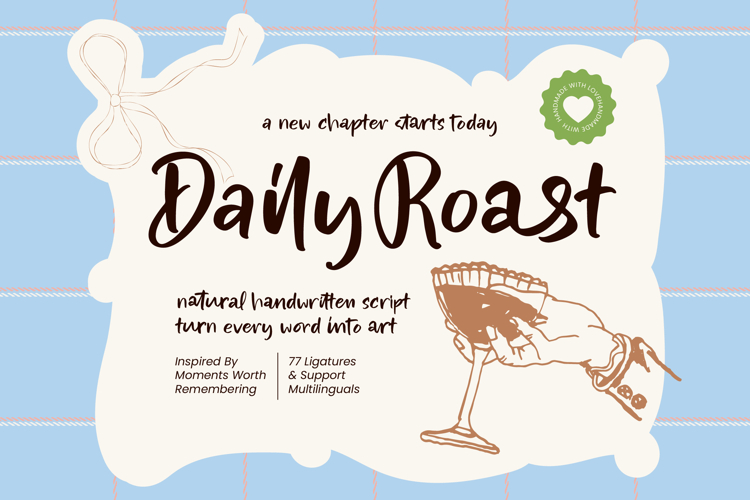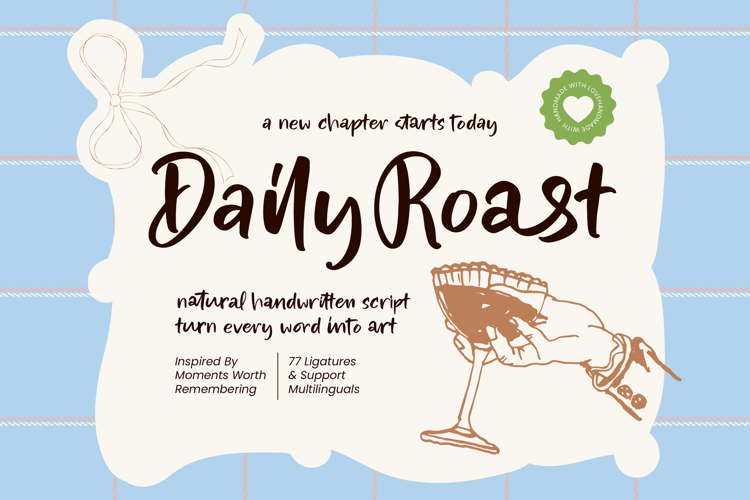
Daily Roast - Natural Handwritten Script
Elevate your creative projects with an authentic touch of human warmth and artistic flair. Daily Roast - Natural Handwritten Script captures the essence of organic handwriting with its fluid strokes and effortless charm. This premium script typeface is designed to bring a touch to digital designs, bridging the gap between professional typography and bespoke artistry. Its natural rhythm and 77 custom ligatures ensure that every word feels unique and hand-crafted.
Discover the ultimate tool for high-end lifestyle branding and sophisticated visual storytelling. This typeface is the perfect solution for luxury packaging, artisanal product labels, and social media branding. Whether you are designing boutique menus, wedding invitations, or editorial layouts, Daily Roast - Natural Handwritten Script provides a sophisticated aesthetic that resonates with modern audiences. It excels in environments where a welcoming atmosphere and authentic connection are paramount to the brand identity.
Bridge the gap between local charm and international accessibility with robust technical features. Beyond its visual beauty, this font is built for the global stage with high-performance functionality. With its extensive multilingual support, Daily Roast - Natural Handwritten Script adapts seamlessly across global markets, making it incredibly versatile for international projects. The inclusion of comprehensive character sets ensures that your message remains clear and stylish, regardless of the language or region of your target demographic.